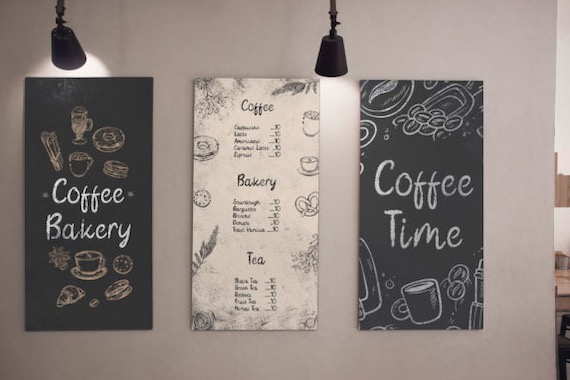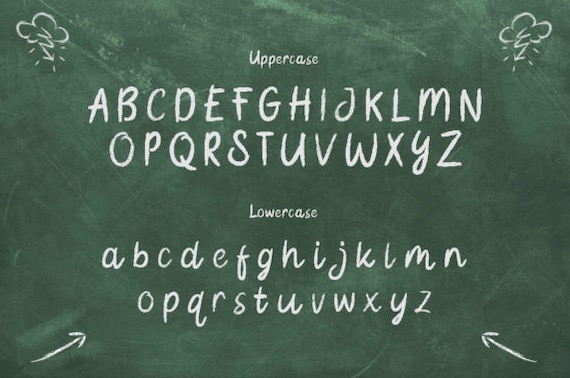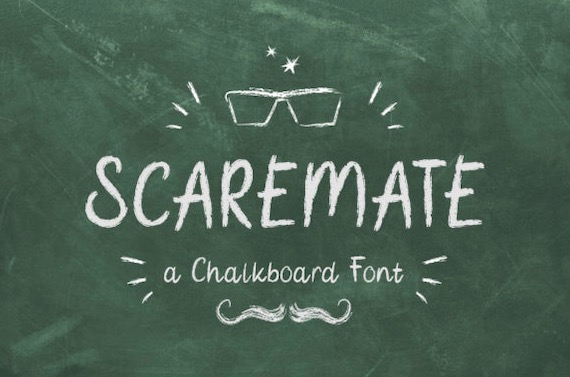
Scaremate is a brushed and clean display font chalkboard font. It was created and shared by TypeFactory along with many gorgeous brush features. So, no matter your design purpose, this font will be an incredible asset to your fonts’ library, as it has the potential to elevate any creation.
Scaremate Brush Chalkboard Font